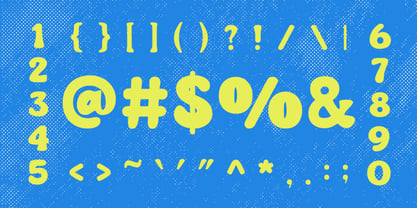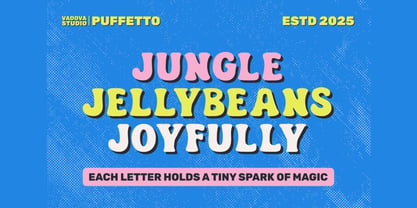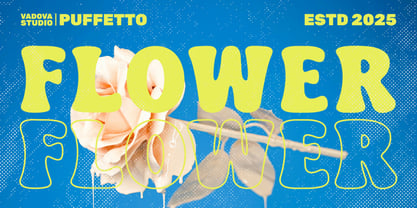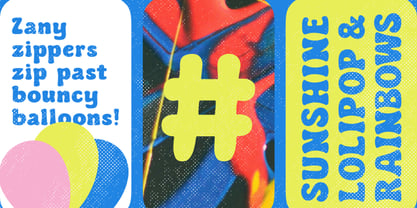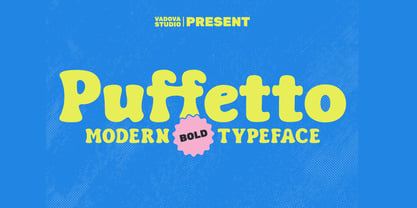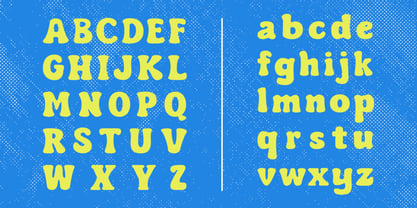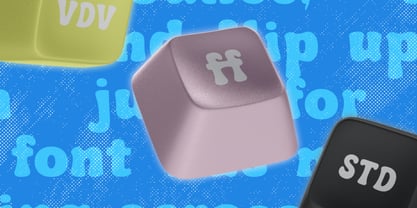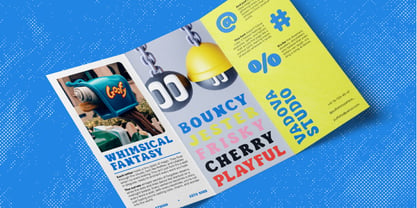
Puffetto
La famille de polices Puffetto a été conçue par et publiée par Vadova Std. Puffetto contient 1 styles. En savoir plus sur cette famille
Puffetto is a bold, fun, and organic display font designed to bring personality and charm to your creative projects. With its soft, rounded forms and slightly irregular edges, it creates a warm, friendly tone that’s perfect for eye‑catching headlines and playful branding. This typeface includes full uppercase and lowercase alphabets, numerals, punctuation, and symbols making it ready for both print and digital use. Puffetto is perfect for designers seeking a bold yet friendly typeface to communicate joy, playfulness, and creativity. Its rounded, organic shapes work wonderfully in children’s products, toy packaging, party graphics, stickers, greeting cards, poster headlines, and social media assets.